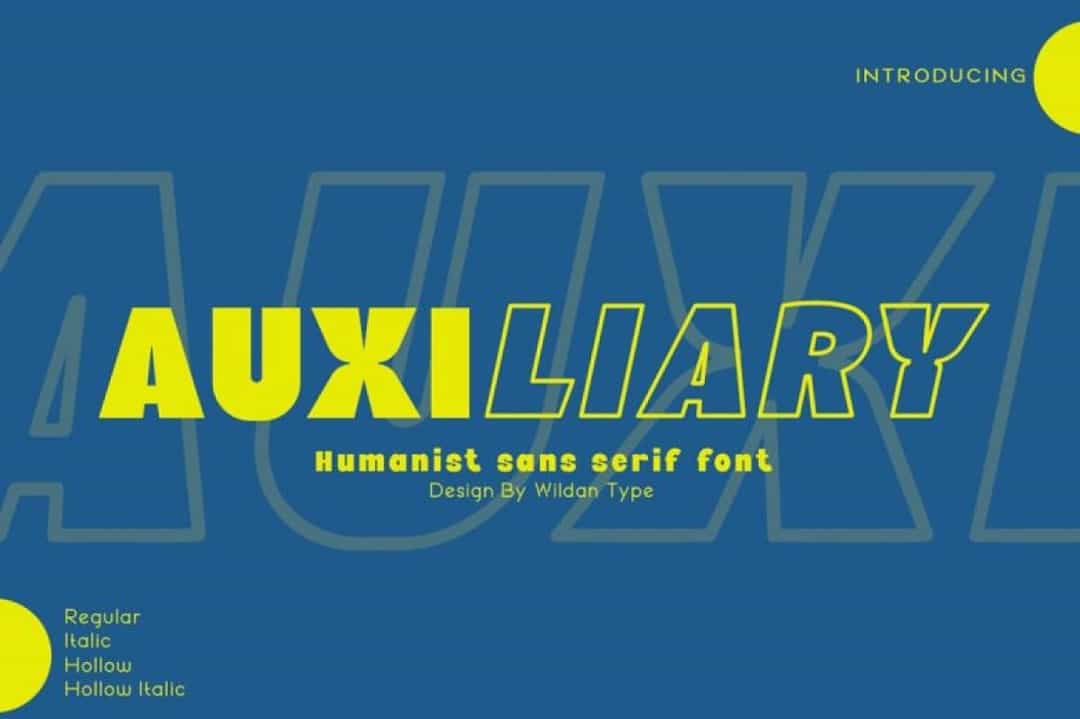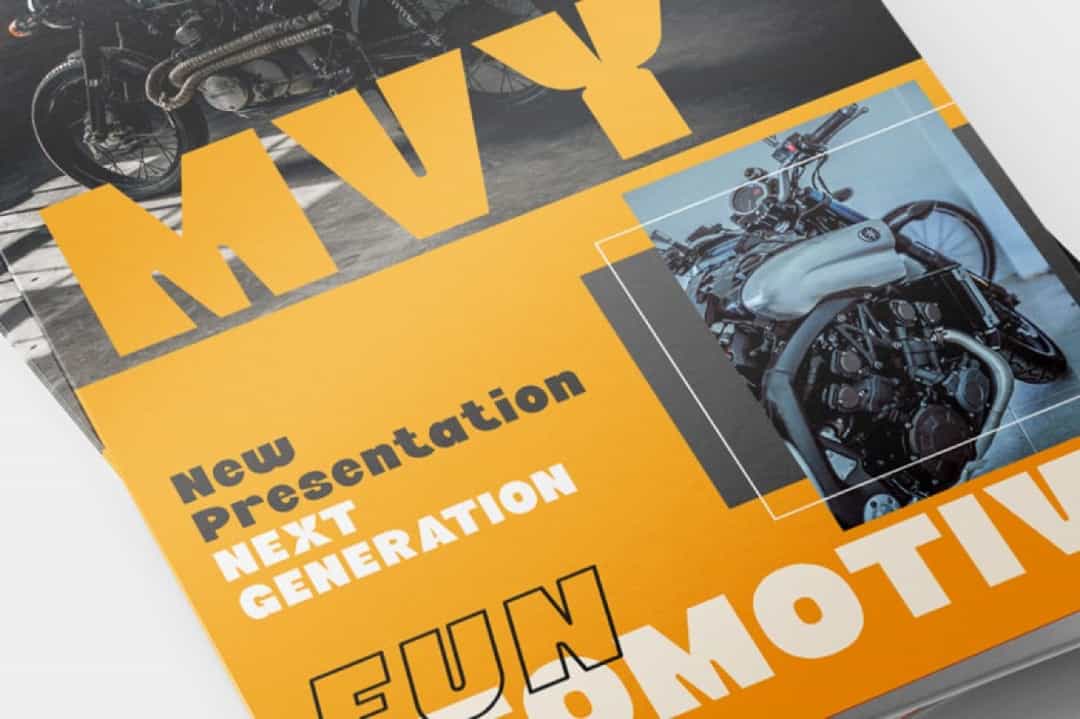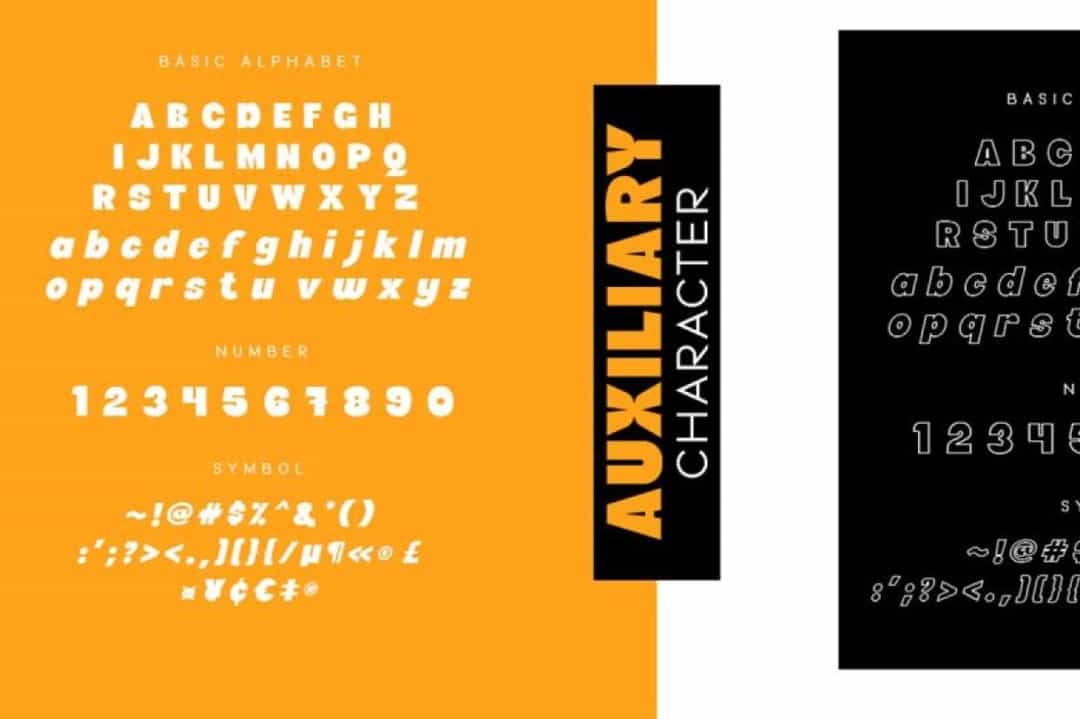
Auxiliary is an engaging humanist sans serif font designed for text display and content, featuring maximum thickness while maintaining balance across every shape, making it suitable for artistic projects of all kinds.